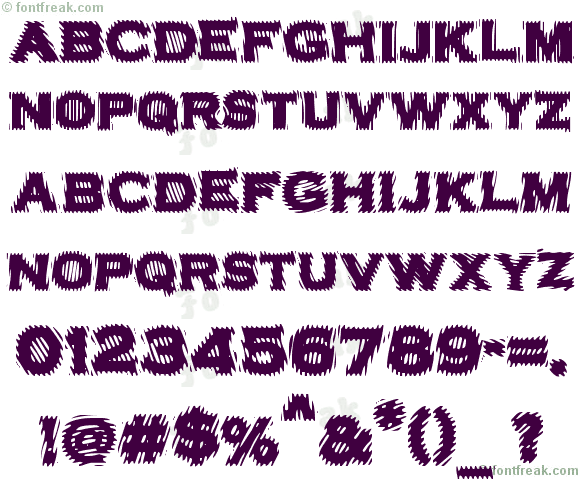
About VTC Bad Plating
VTC Bad Plating, designed by Wolfbainx, is a captivating display typeface that embodies an edgy and unconventional aesthetic. This font falls into the decorative category, showcasing a unique blend of boldness and artistry that makes it stand out in any design project. The strokes are thick and dynamic, with a slightly irregular weight that adds an organic feel. The characters exhibit a playful yet structured spacing, creating a rhythm that draws the eye. Its distinctive style features decorative elements that mimic the look of distressed metal, giving it a gritty, industrial vibe.
This font is ideal for a variety of creative applications. It can be effectively used for eye-catching movie posters that require a sense of urgency and excitement, or as a striking headline font for music event flyers. VTC Bad Plating is also perfect for branding efforts in industries such as streetwear and urban art, where a bold statement is essential. Additionally, it can enhance restaurant menus, particularly in establishments that focus on a casual or retro atmosphere, as well as for designing unique merchandise that stands out in a crowded marketplace.
The target audience for this typeface includes graphic designers looking to infuse their projects with personality, small business owners aiming for distinctive branding, and content creators on various platforms who wish to convey a strong visual identity.